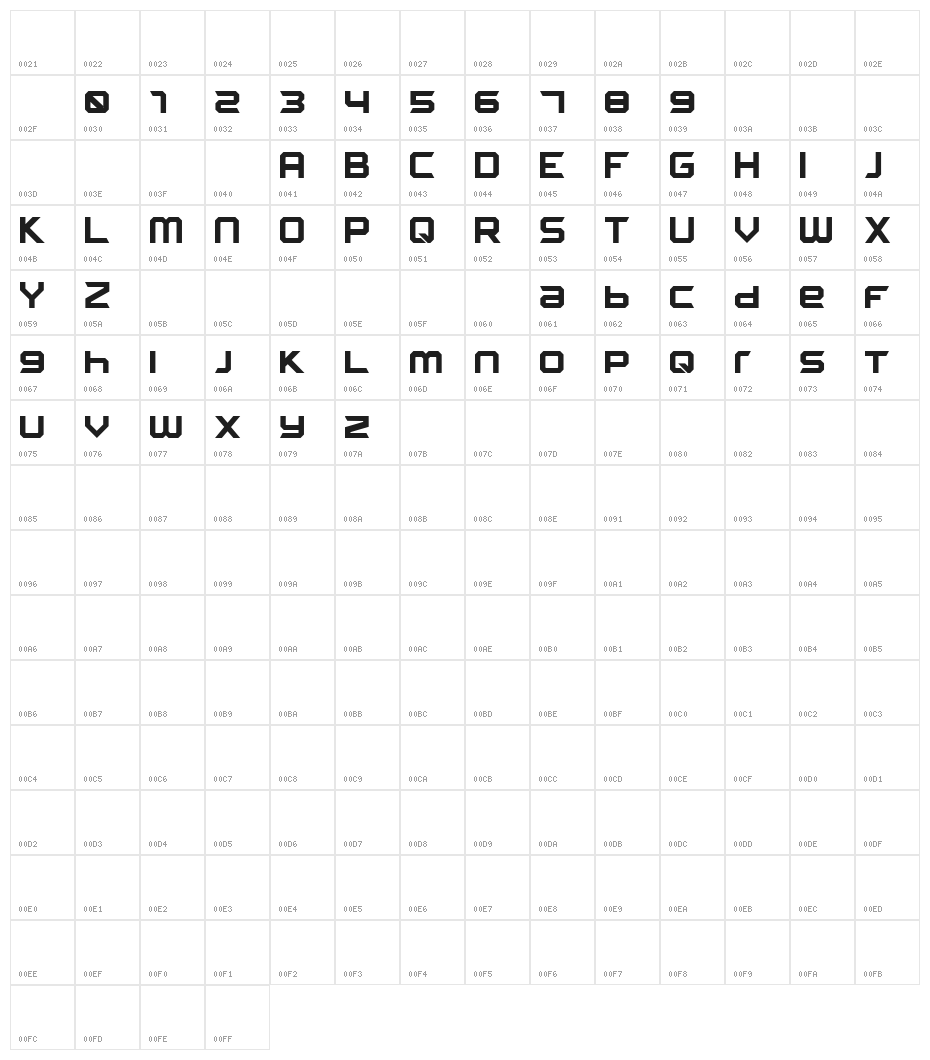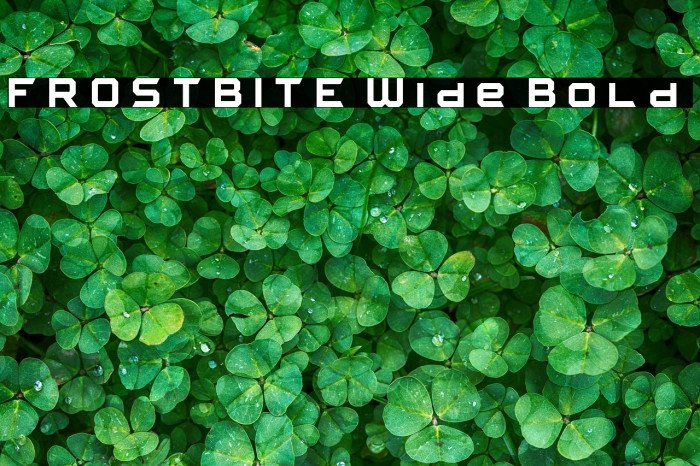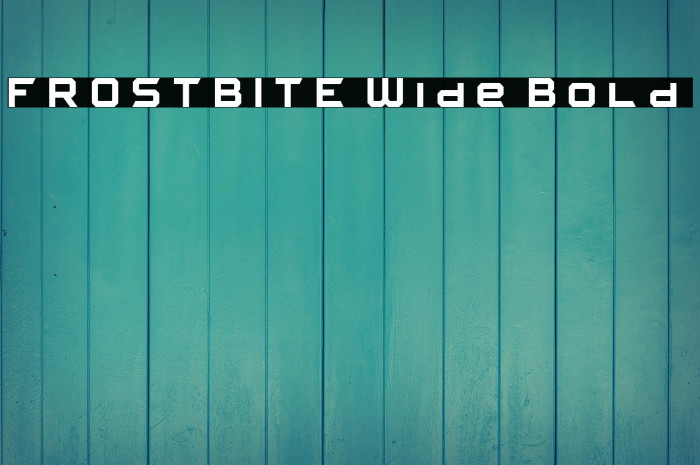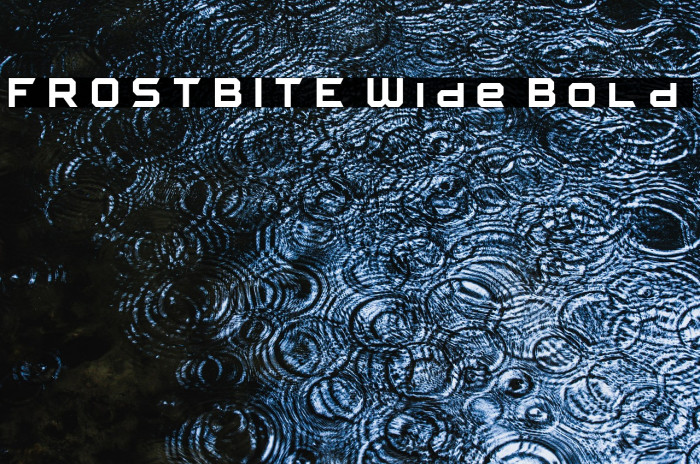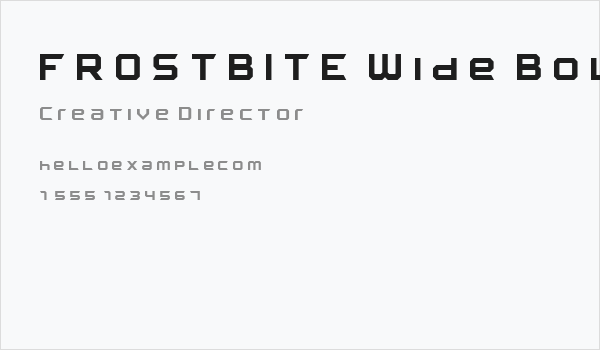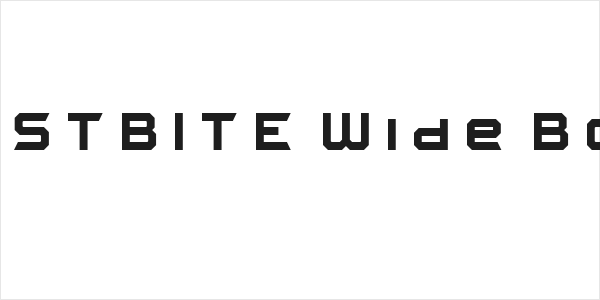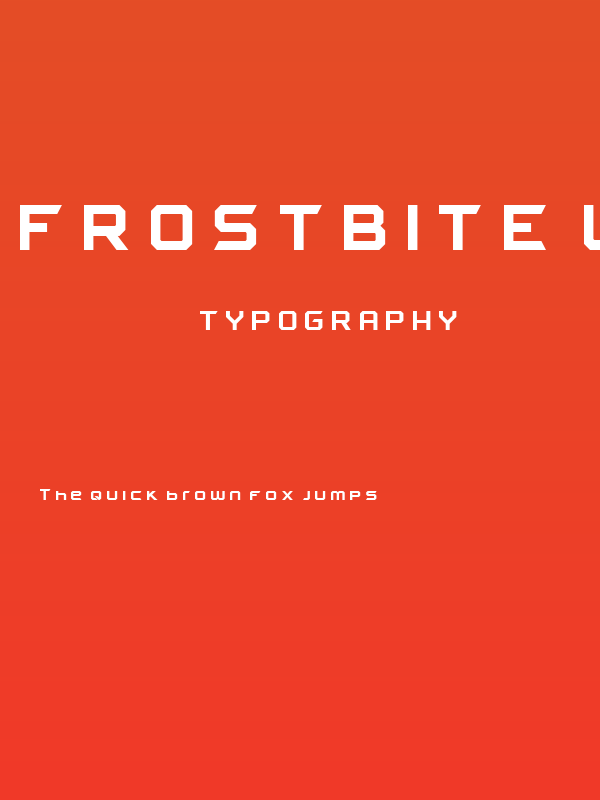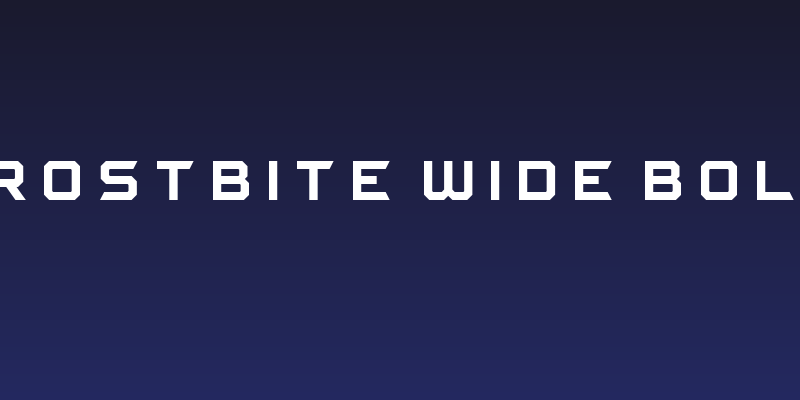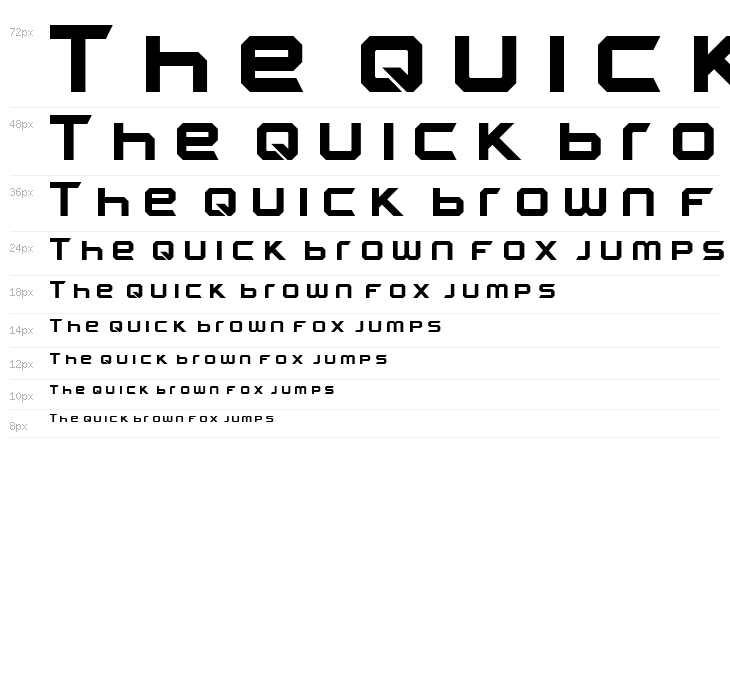
FROSTBITE Wide Bold Font
FROSTBITE Wide Bold Description
This font features a bold, geometric design with a futuristic and angular appearance. The characters are wide and have a strong presence, making them ideal for impactful headlines or titles. The sharp edges and clean lines give it a modern and digital feel, reminiscent of technology and innovation. The uniformity in stroke width across characters ensures a cohesive look, while the distinct shapes of each letter add a unique flair. The numbers and special characters maintain the same bold and structured style, ensuring consistency throughout.
| Proposed Projects | Ideal for technology branding, video game titles, sci-fi posters, and modern digital interfaces. |